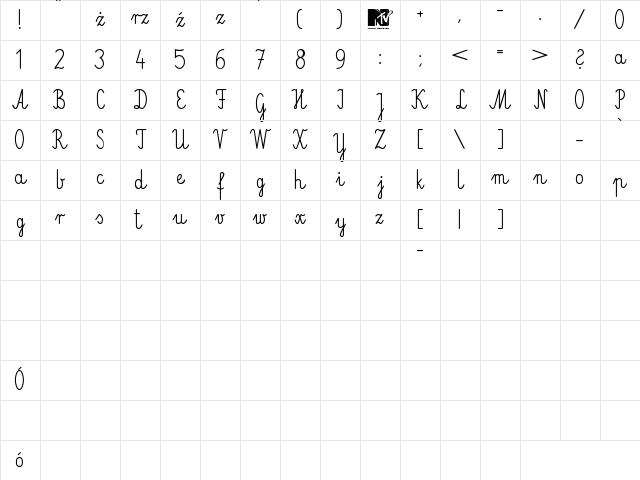
ElementarzDwa Regular Free Font
ElementarzDwa Regular
Foundry: fontoholic
Designer: bartek nowak
Design Context for ElementarzDwa
ElementarzDwa is a composed and adaptable typeface that performs quietly and consistently across a wide range of design contexts.